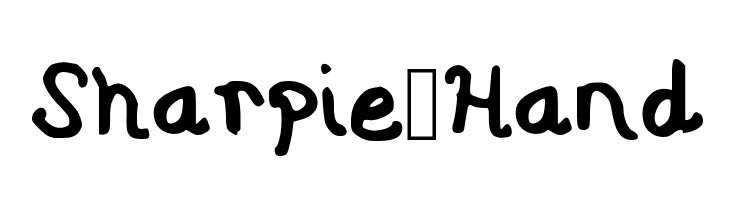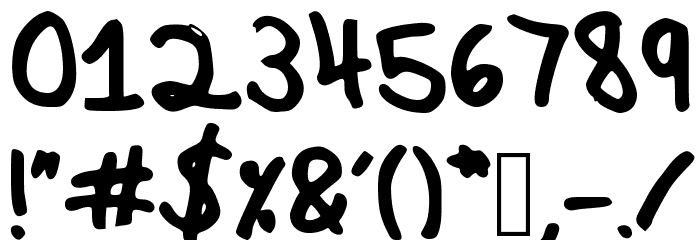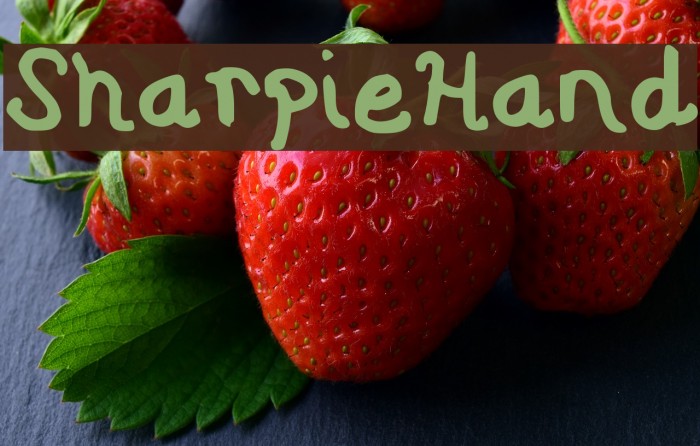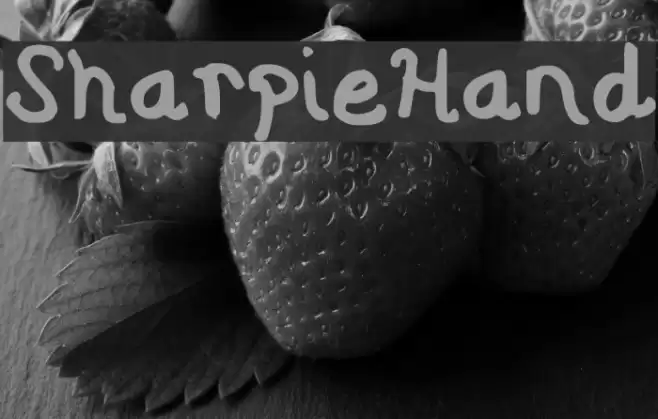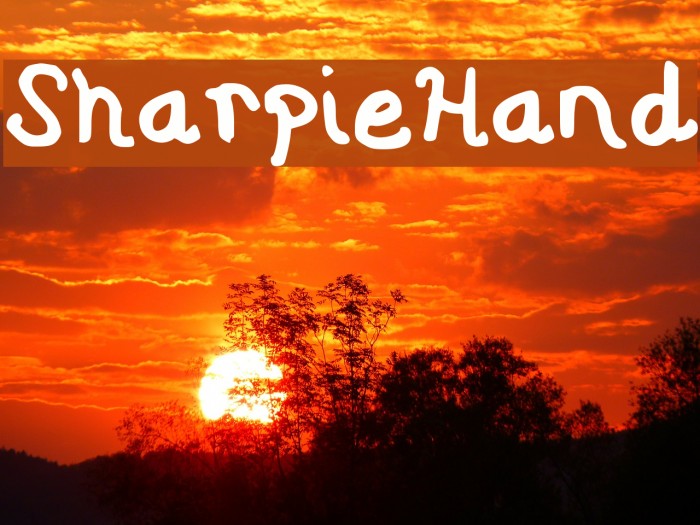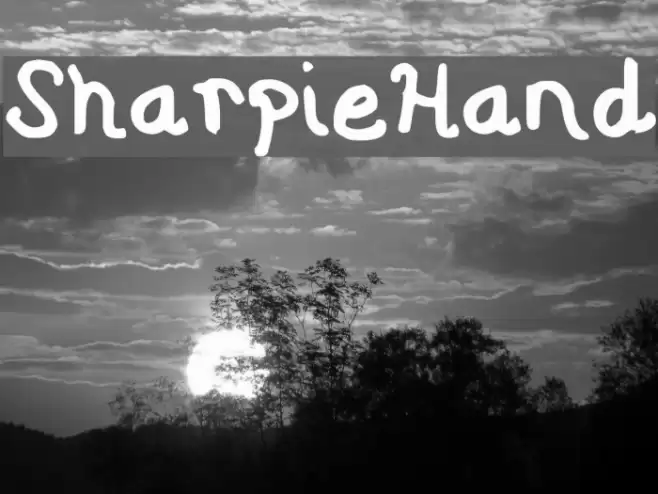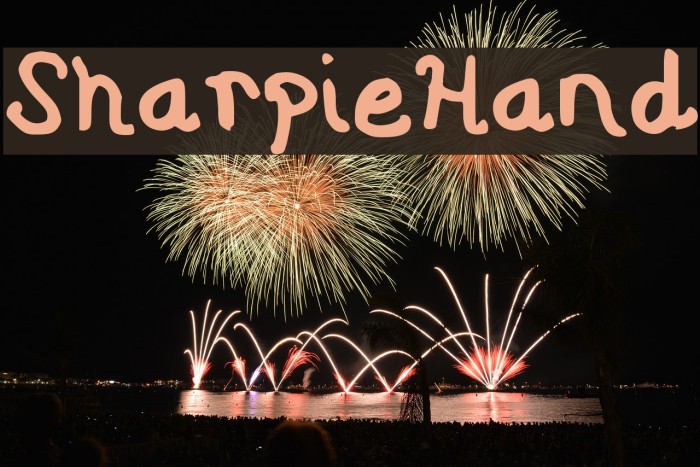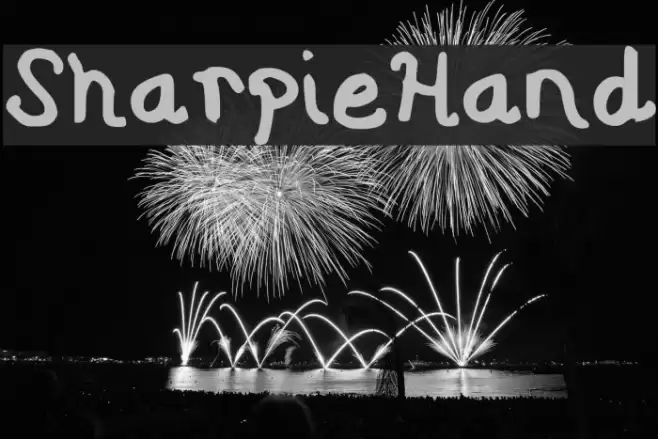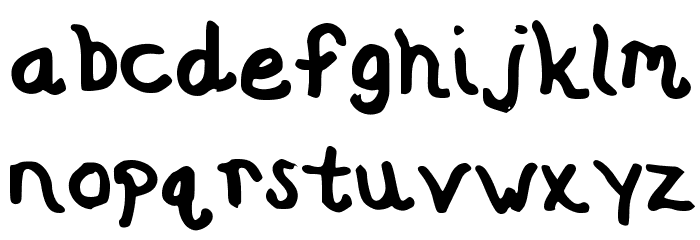
Sharpie Hand Font
Sharpie Hand Description
This font exudes a playful and casual handwritten style, reminiscent of writing with a marker. The characters are bold and rounded, with a slightly uneven baseline that adds to its informal charm. The strokes are thick and consistent, giving a strong presence on the page. Each letter maintains a distinct individuality, yet they collectively form a cohesive and visually appealing set. The numerals and special characters follow the same design ethos, ensuring uniformity across all glyphs. This font is ideal for projects that require a personal touch or a sense of approachability.
| Overall Style | Casual |
| Use Case | Headlines, Logos, Informal Text |
| Proposed Projects | Great for greeting cards, children's books, casual branding, and social media graphics. |